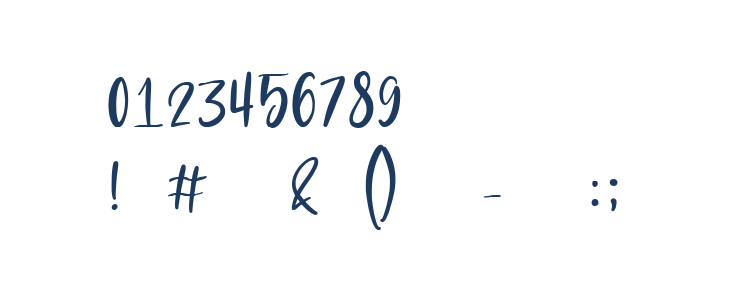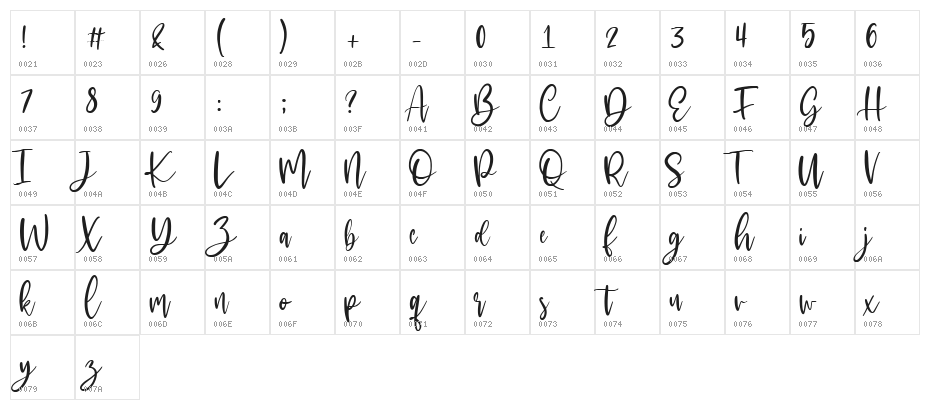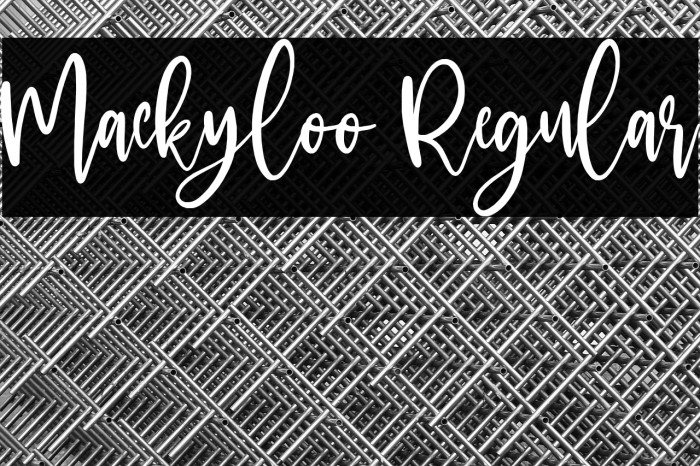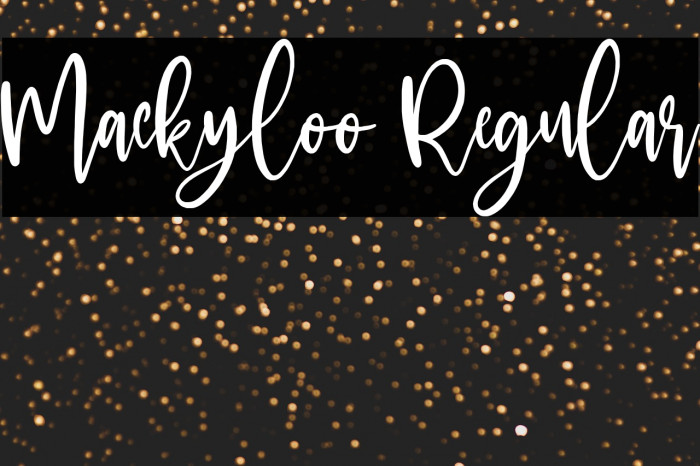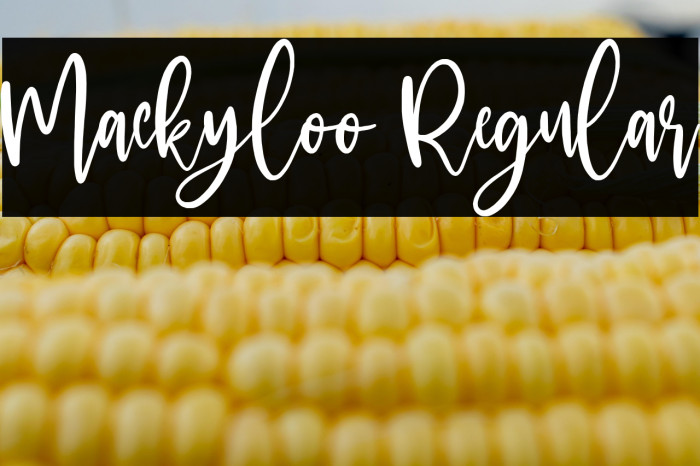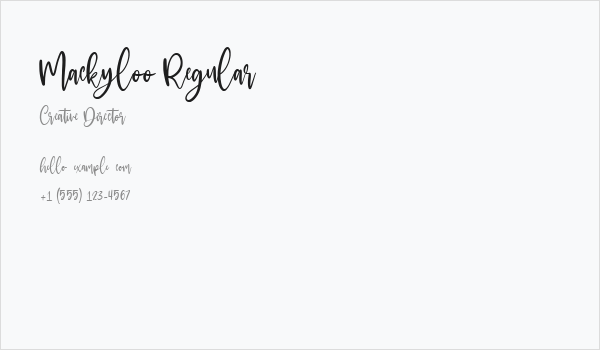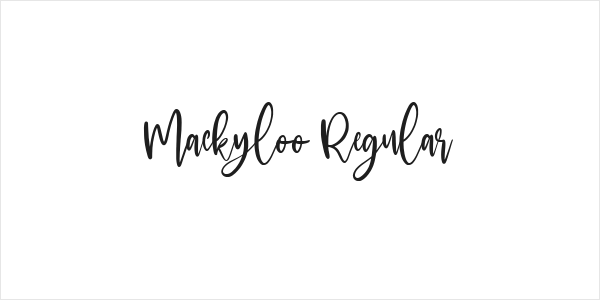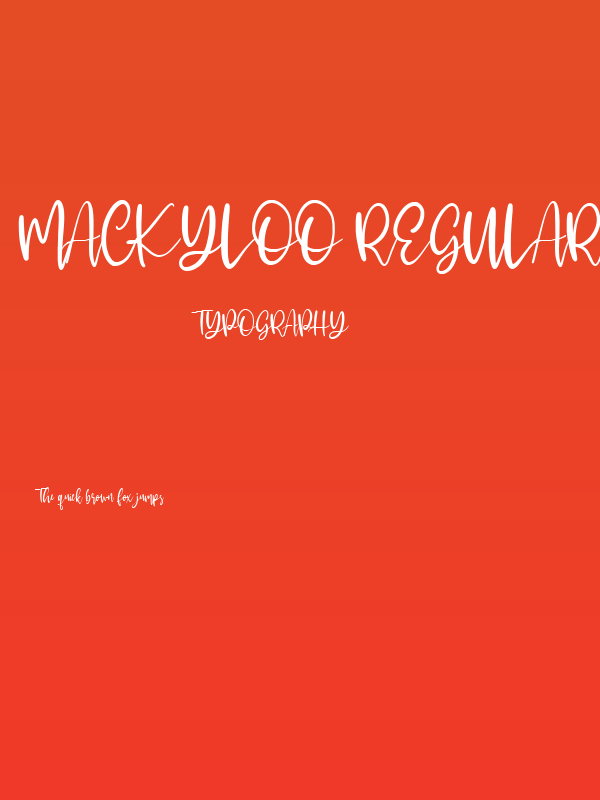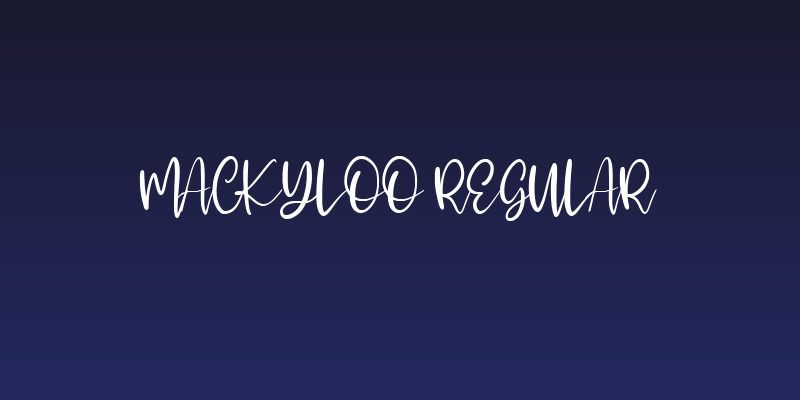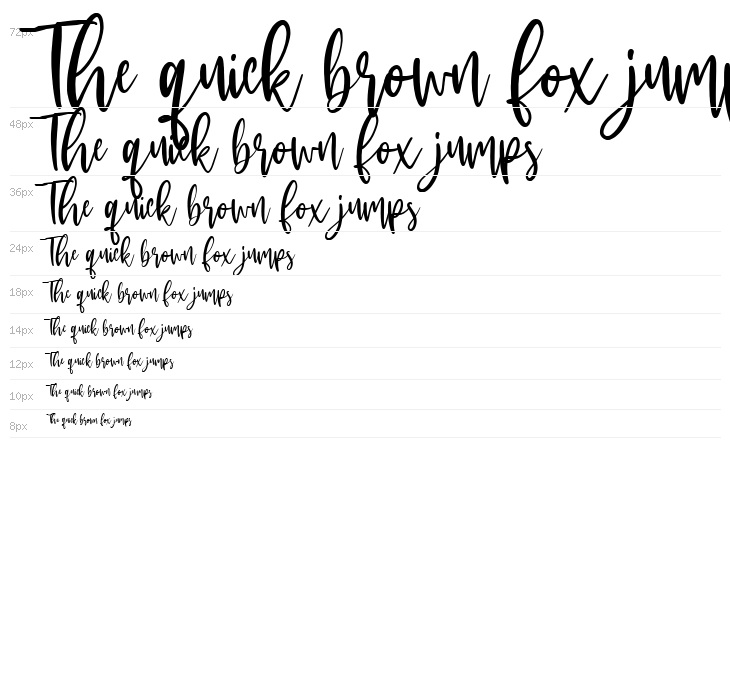
Mackyloo Regular Font
| Stile generale | Modern, Decorative |
| Caso d'uso | Logos, Headlines, Social Media Graphics |
| Progetti proposti | Ideal for greeting cards, invitations, branding, social media graphics, and personal projects that require a touch of personality. |